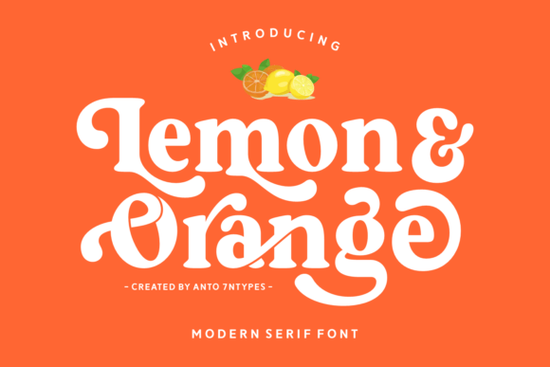
If you're looking for a font that feels both playful and polished, the Lemon and Orange Font might be exactly what your next project needs. Designed with a cheerful personality and elegant details, it blends whimsy with sophistication in a way that works beautifully across everything from greeting cards to apparel designs.
This typeface stands out because it doesn’t stick to just one mood. One moment it’s radiating romantic charm with its delicate swashes and rose-like flourishes perfect for wedding invitations or love-themed quotes and the next, it’s bursting with citrusy energy ideal for birthday graphics or summer branding. That kind of flexibility makes it especially useful for small businesses and crafters who need one font to wear many hats.
What kinds of projects work best with Lemon and Orange?
Thanks to its mix of bold strokes and graceful curves, this font adapts well to both personal and commercial use:
- Print-on-demand products: T-shirts, mugs, and tote bags featuring uplifting quotes or seasonal messages.
- Event stationery: Wedding invites, birthday cards, baby shower tags anything that benefits from a touch of handcrafted warmth.
- Branding elements: Logos, packaging labels, or social media graphics for lifestyle, beauty, or food-related brands.
- Book covers and editorial design: Especially for genres like romance, self-help, or cookbooks where personality matters.
If you enjoy pairing fonts, consider combining Lemon and Orange with something clean and minimal like a neutral sans-serif for contrast. You’ll find complementary options in collections like bright serif fonts or even more delicate choices among ethereal serif fonts.
How customizable is this font?
Beyond standard uppercase and lowercase letters, Lemon and Orange includes ligatures and alternate characters that let you fine-tune your typography. These extras help avoid repetitive letterforms and add subtle flair especially useful when designing logos or short phrases where every detail counts.
It also supports multiple languages, which is a big plus if you’re creating content for international audiences or bilingual projects. And while it shines as a display font (meaning it’s best used in headlines or short texts), it’s not meant for long paragraphs. Save it for moments when you want your words to make a visual statement.
Is this font beginner-friendly?
If you’ve worked with other expressive serifs before like those found in the old string font collection you’ll appreciate how Lemon and Orange balances ornamentation with readability. It’s detailed without being overwhelming, and cheerful without tipping into childish territory.
Why choose this over other decorative fonts?
Many decorative fonts lean heavily in one direction: either ultra-formal or overly cute. Lemon and Orange strikes a rare middle ground. Its citrus-inspired name isn’t just marketing it genuinely captures a fresh, optimistic tone that still feels refined. That duality opens up more creative possibilities than fonts locked into a single aesthetic.
For example, you could use it on a luxury skincare label one day and a kids’ party banner the next. Few fonts transition that smoothly between contexts. If you’re building a versatile toolkit for client work or your own shop, that kind of range saves time and licensing costs.
Looking for similar vibes? Explore other lively yet elegant options like those in the Lemon and Orange font category, where you’ll find serifs that share its balance of charm and clarity.
- ✅ Think about where you’ll use it headlines, logos, or product text? This font excels in short-form applications.
- ✅ Pair it thoughtfully: contrast its curves with simple, clean typefaces for maximum impact.
- ✅ Test multilingual characters if needed its extended language support is a hidden strength.
Whether you’re designing a spring wedding suite or launching a line of citrus-scented candles, Lemon and Orange brings a burst of personality without sacrificing polish. Give it a try the next time your project needs a little sunshine and a lot of style.